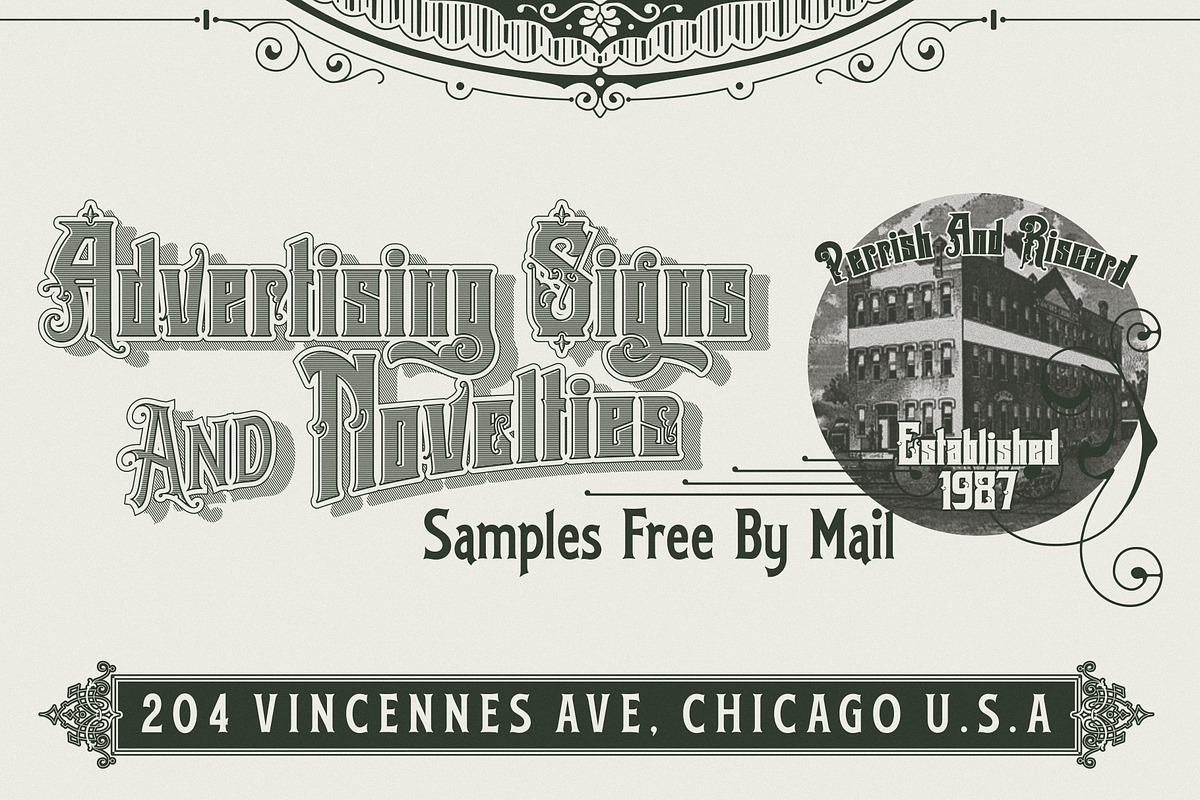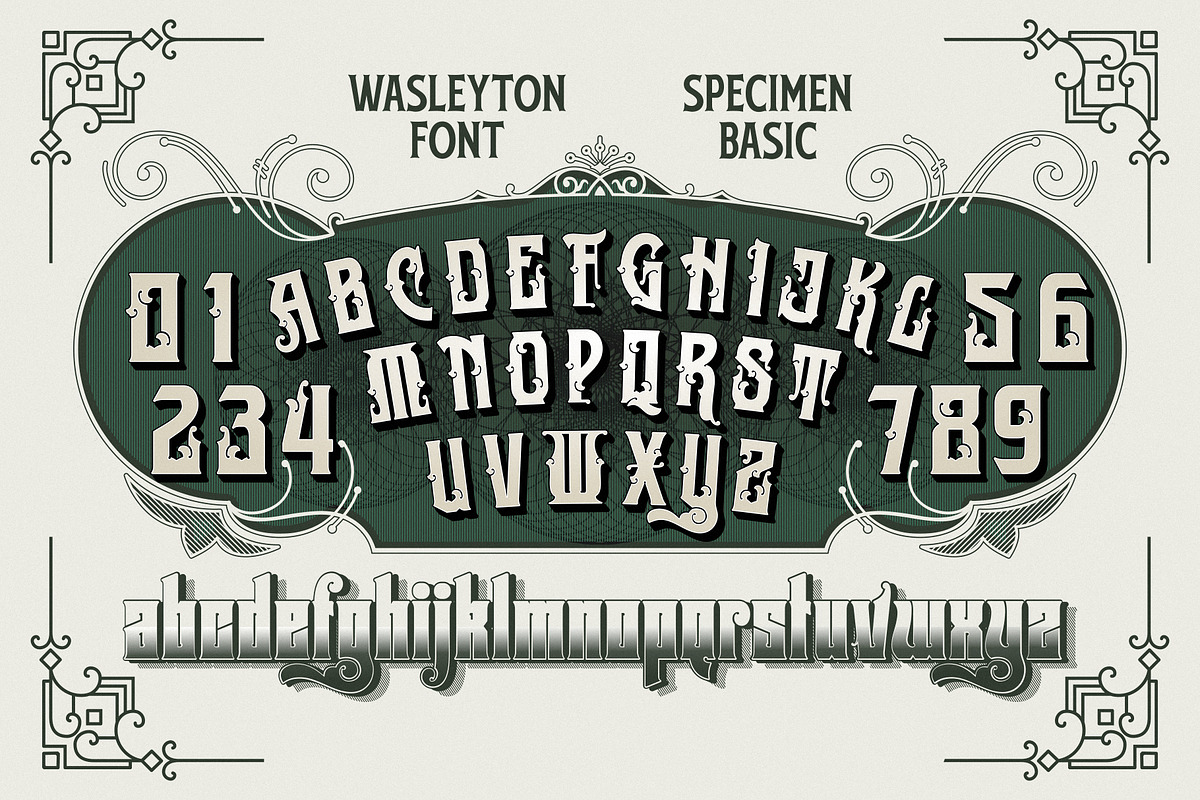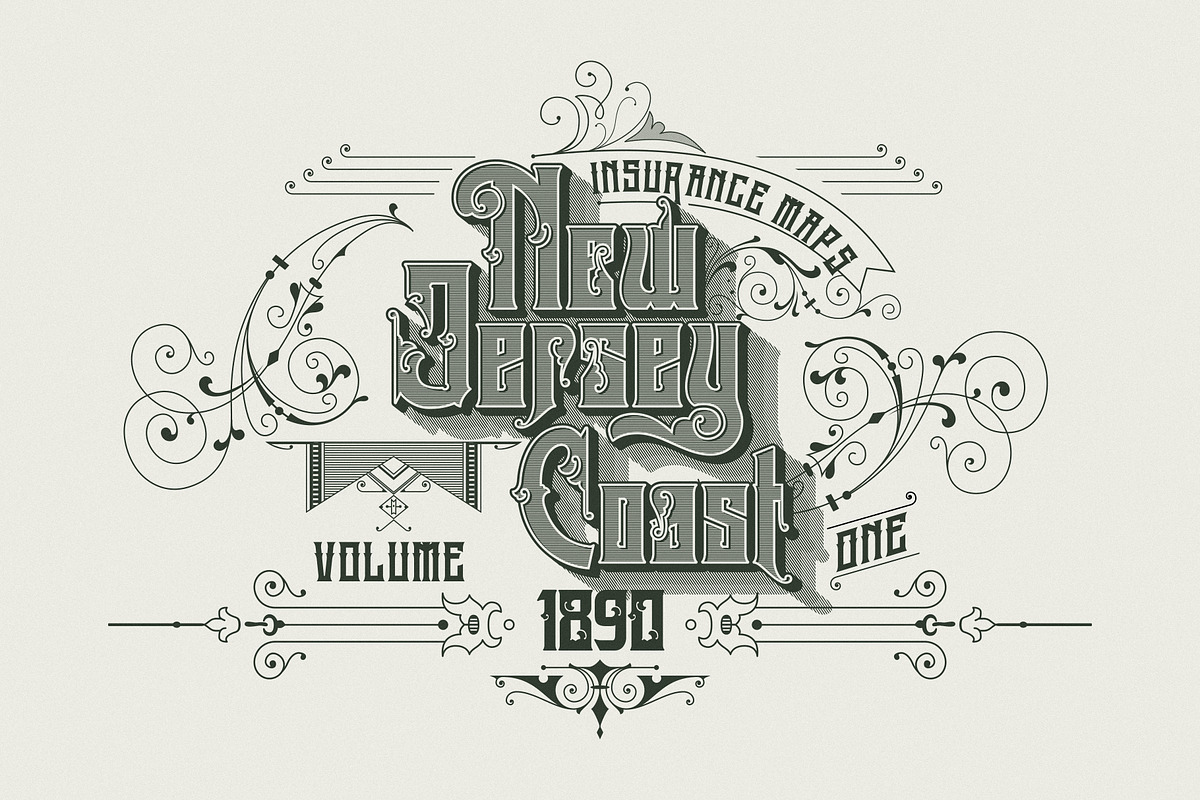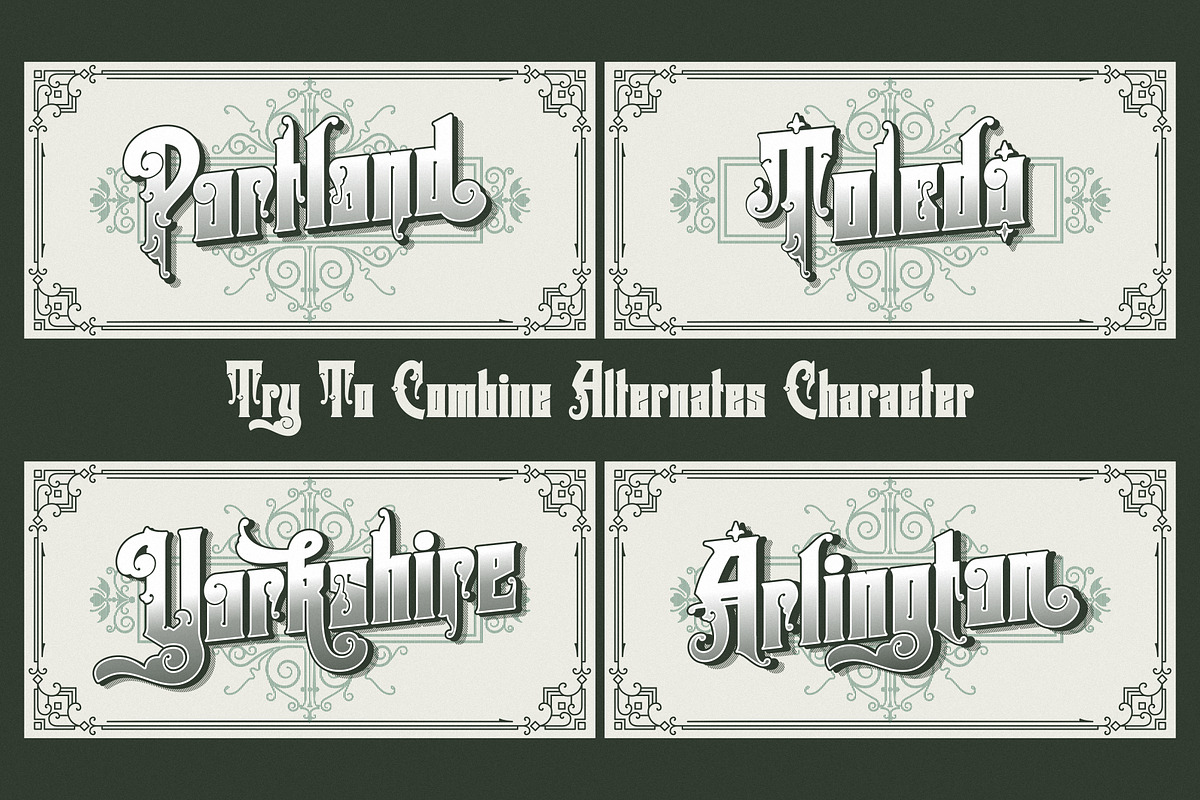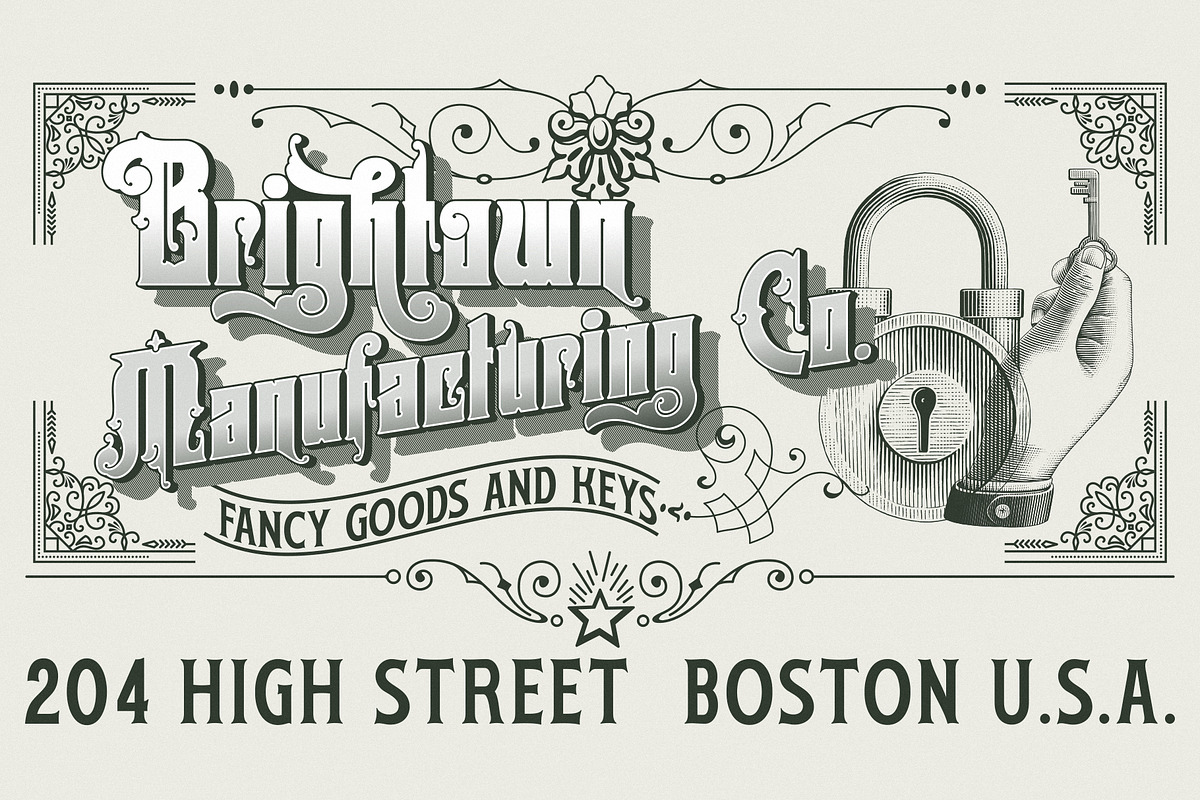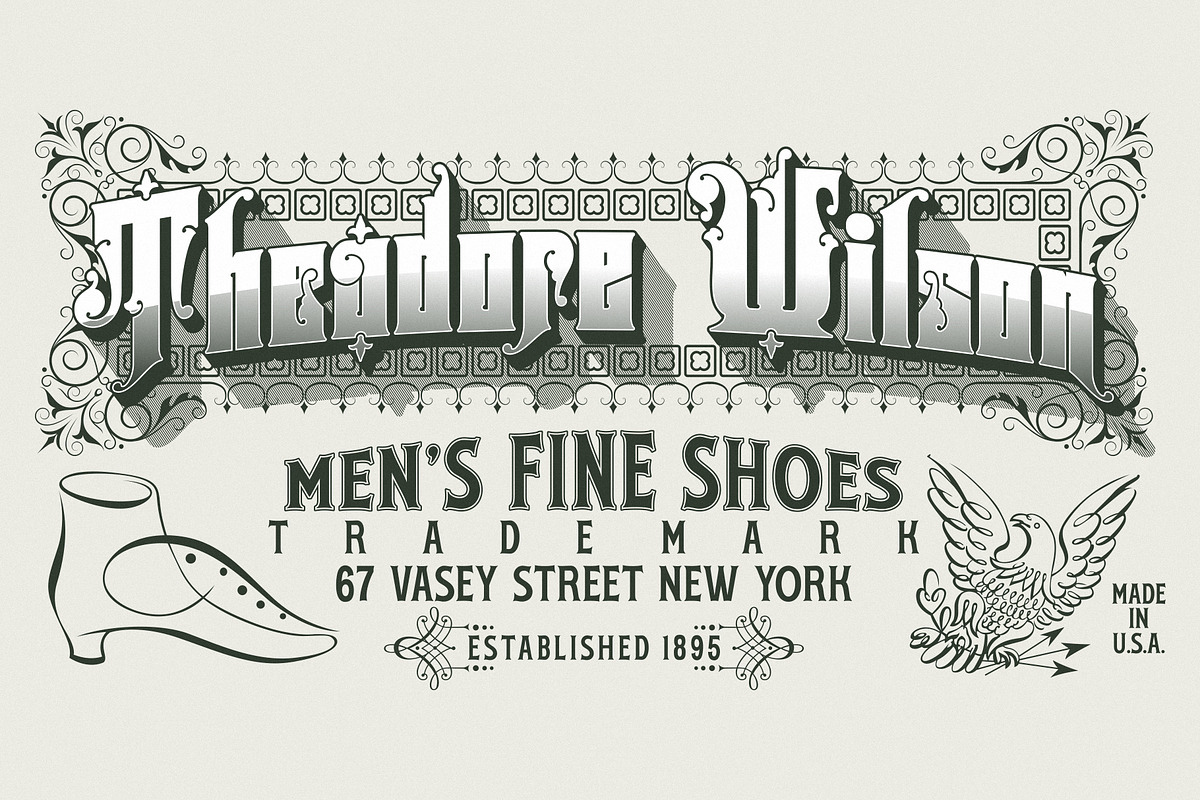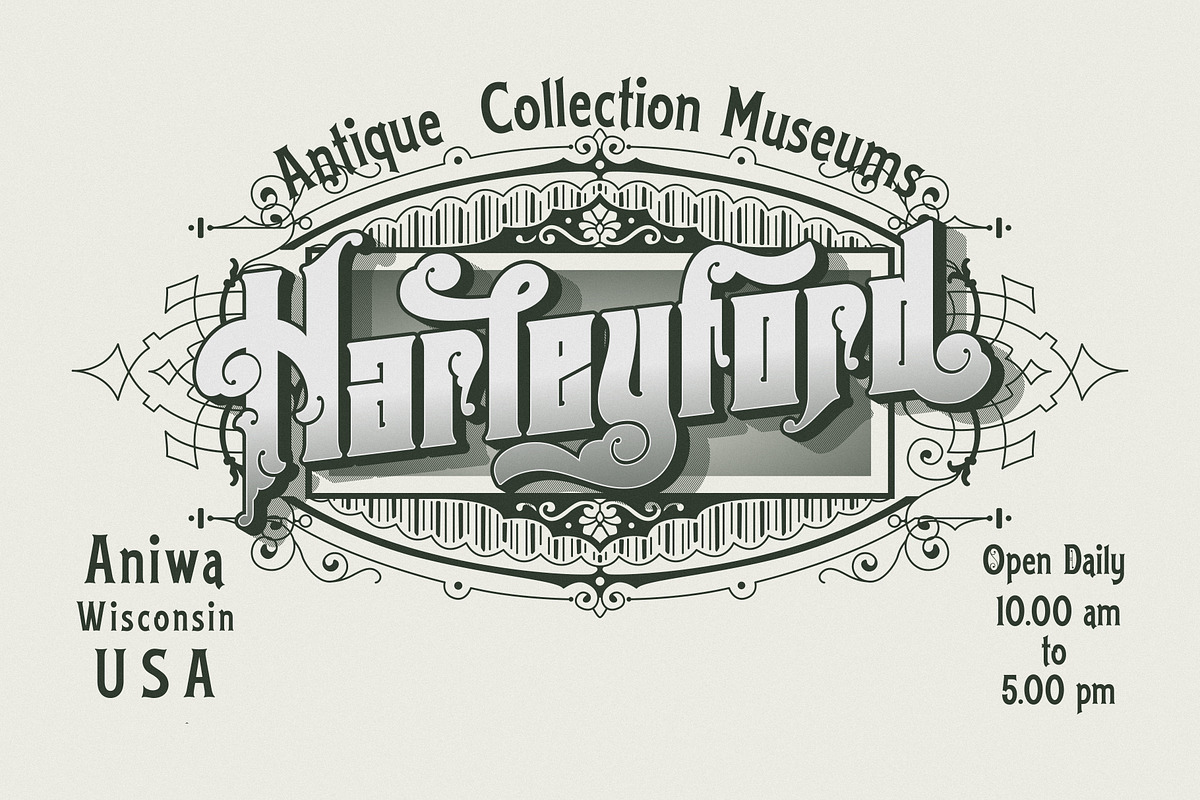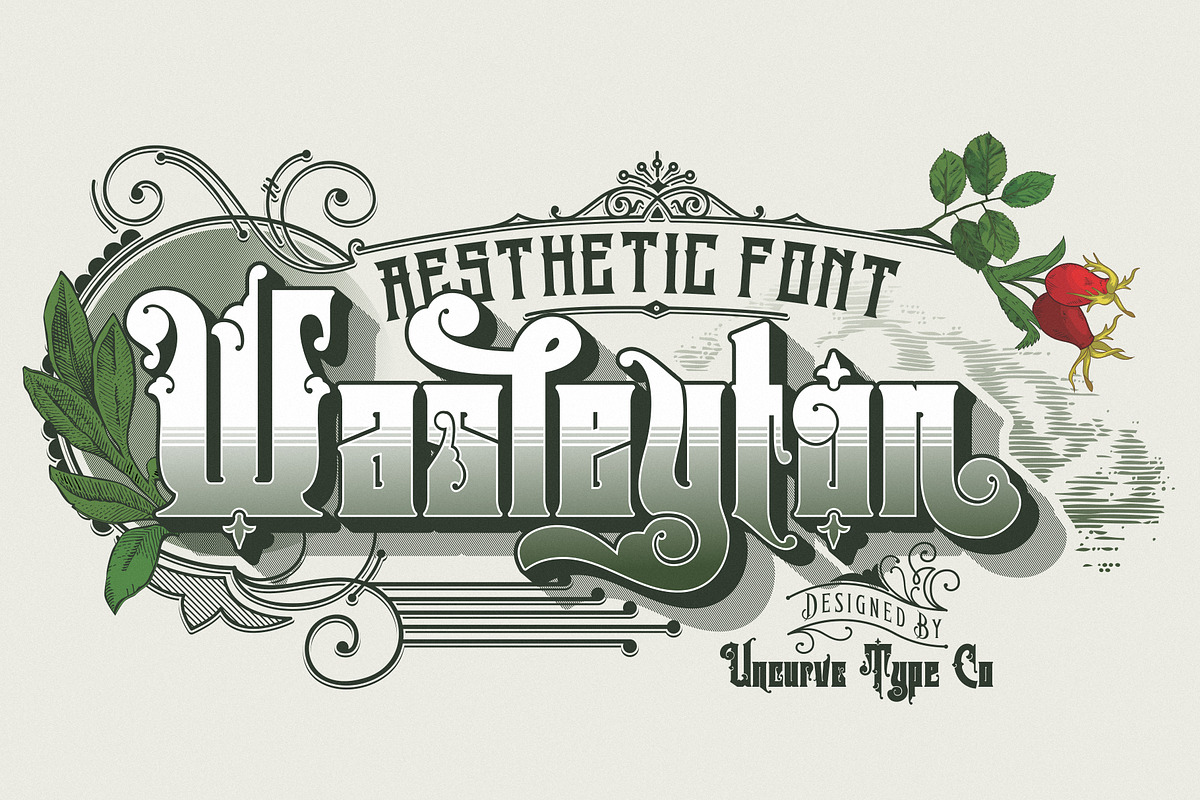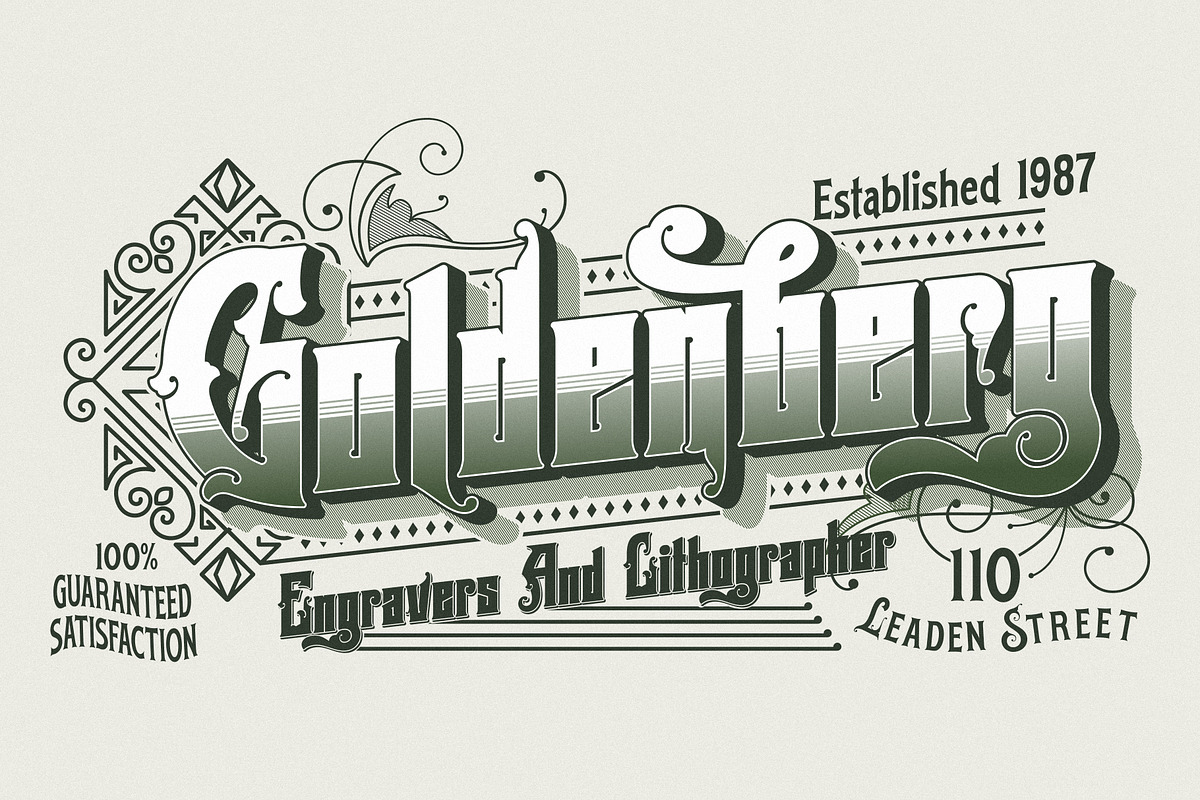
Wasleyton
Introducing "Wasleyton" a vintage ephemera font that weaves the elegance of a bygone era into your modern design projects. Drawing inspiration from the timeless charm of elegant signage, gold leaf craftsmanship, and the artistry of old label products, Wasleyton is more than just a font—it's a journey into the aesthetics of the past.
Unleash the power of nostalgia as Wasleyton offers a plethora of alternate characters, ensuring your designs are not just eye-catching but also uniquely authentic. The versatility of this font makes it a perfect choice for a range of applications, from authentic logos and elegant headings to the artistry of sign painting and captivating posters.
Infuse your projects with a touch of vintage sophistication as Wasleyton lends its charm to letterheads, branding materials, magazines, album covers, and book covers. Watch as your designs come alive in movies, apparel, flyers, and label designs, each one telling a story of craftsmanship and timeless style.
Combine Wasleyton with other fonts, be it a script for a touch of fluid elegance, a serif for classic appeal, or a sans serif for a modern twist. Add a few effects, and suddenly, your project transforms into a masterpiece—classic yet contemporary, elegant yet bold.